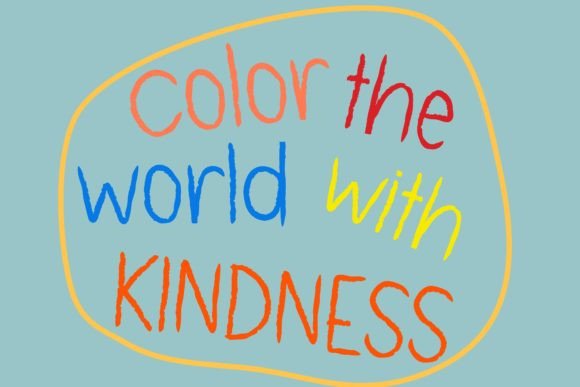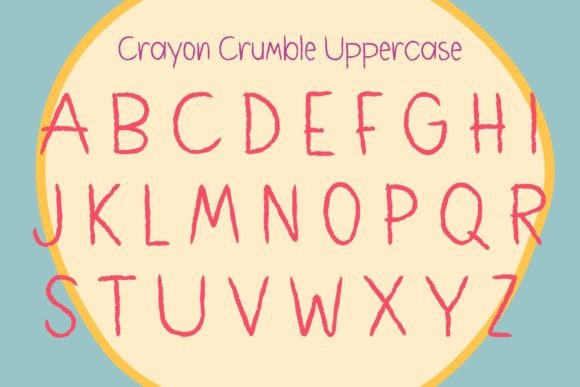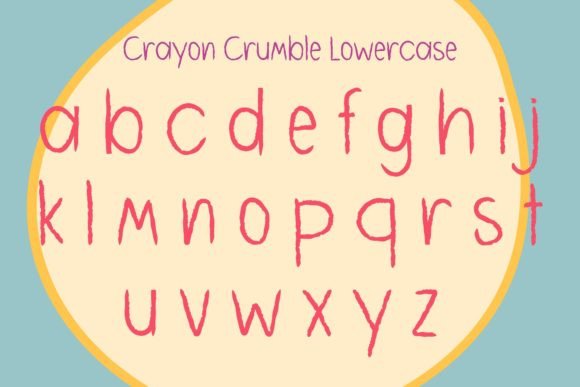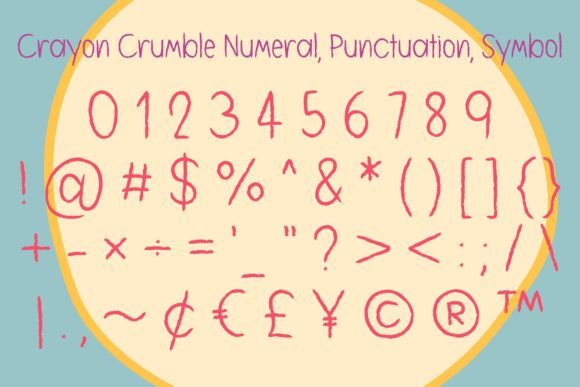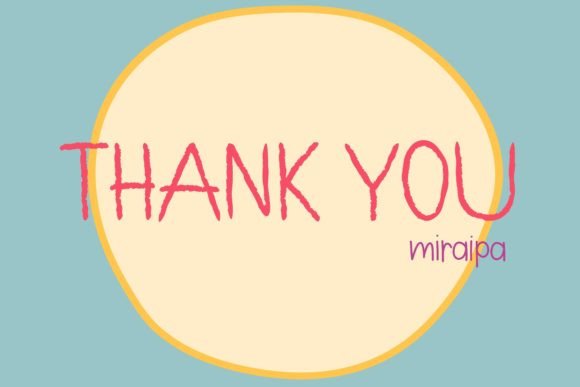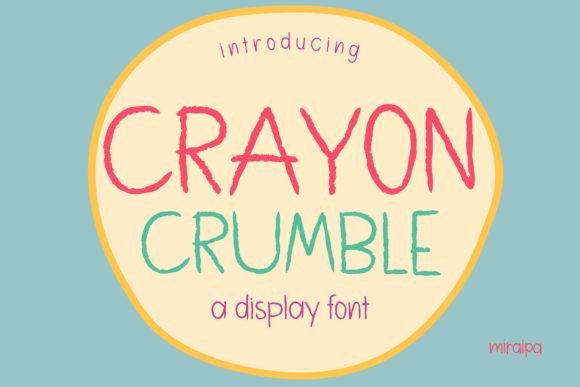
Crayon Crumble Font: Add a Playful Touch to Your Designs
Are you looking for a font that can add a playful and friendly touch to your designs? Look no further than the Crayon Crumble Font! This display font style is designed in a cute and lovely style, making it perfect for a variety of projects that require a fresh and youthful feel.
What is Crayon Crumble Font?
Crayon Crumble Font is a unique and creative font style that mimics the look of crayons. It’s a display font, which means it’s best used for headlines, titles, and short text passages. The font features a distinctive crumbly texture, giving it a handmade and imperfect feel that’s perfect for designs that need a personal touch.
Crayon Crumble Font is an incredibly versatile font that can be used for a wide range of creative projects. Here are some ideas to get you started:
- Back-to-school designs: Create eye-catching posters, flyers, and invitations for the new school year.
- Party decorations: Add a playful touch to your party decorations, such as banners, garlands, and centerpieces.
- Party invitations: Design fun and colorful invitations for birthday parties, baby showers, and other celebrations.
- Posters: Create bold and eye-catching posters for events, promotions, or social causes.
- Blogs: Add a friendly and approachable tone to your blog with Crayon Crumble Font.
- Clothing: Design fun and playful apparel, such as t-shirts, hoodies, and tote bags.
- Child-related designs: Create engaging and colorful designs for children’s books, toys, and games.
- Greeting cards: Design heartfelt and personalized greeting cards for special occasions.
- Social media posts: Add a pop of color and personality to your social media posts with Crayon Crumble Font.
Why Choose Crayon Crumble Font?
So why choose Crayon Crumble Font for your designs? Here are just a few reasons:
- Unique and creative: Crayon Crumble Font is a one-of-a-kind font that will add a touch of personality to your designs.
- Easy to read: Despite its playful texture, Crayon Crumble Font is easy to read and understand.
- Versatile: This font can be used for a wide range of projects, from digital designs to print materials.
- Fun and playful: Crayon Crumble Font is perfect for designs that need a friendly and approachable tone.
Tips for Using Crayon Crumble Font
Here are a few tips for using Crayon Crumble Font in your designs:
- Use it sparingly: Crayon Crumble Font is a display font, so it’s best used sparingly for headlines and titles.
- Pair it with other fonts: Try pairing Crayon Crumble Font with other fonts to create a unique and interesting contrast.
- Experiment with colors: Crayon Crumble Font looks great in bright, bold colors, but feel free to experiment with different color schemes.
- Have fun: Most importantly, have fun with Crayon Crumble Font! It’s a playful and creative font that’s meant to bring a smile to people’s faces.
Crayon Crumble Font is a unique and creative font style that’s perfect for designers and crafters who want to add a playful touch to their designs. With its distinctive crumbly texture and friendly feel, this font is sure to bring a smile to people’s faces. Whether you’re working on a back-to-school project, a party invitation, or a social media post, Crayon Crumble Font is a great choice. So why not give it a try and see what kind of creative projects you can come up with?